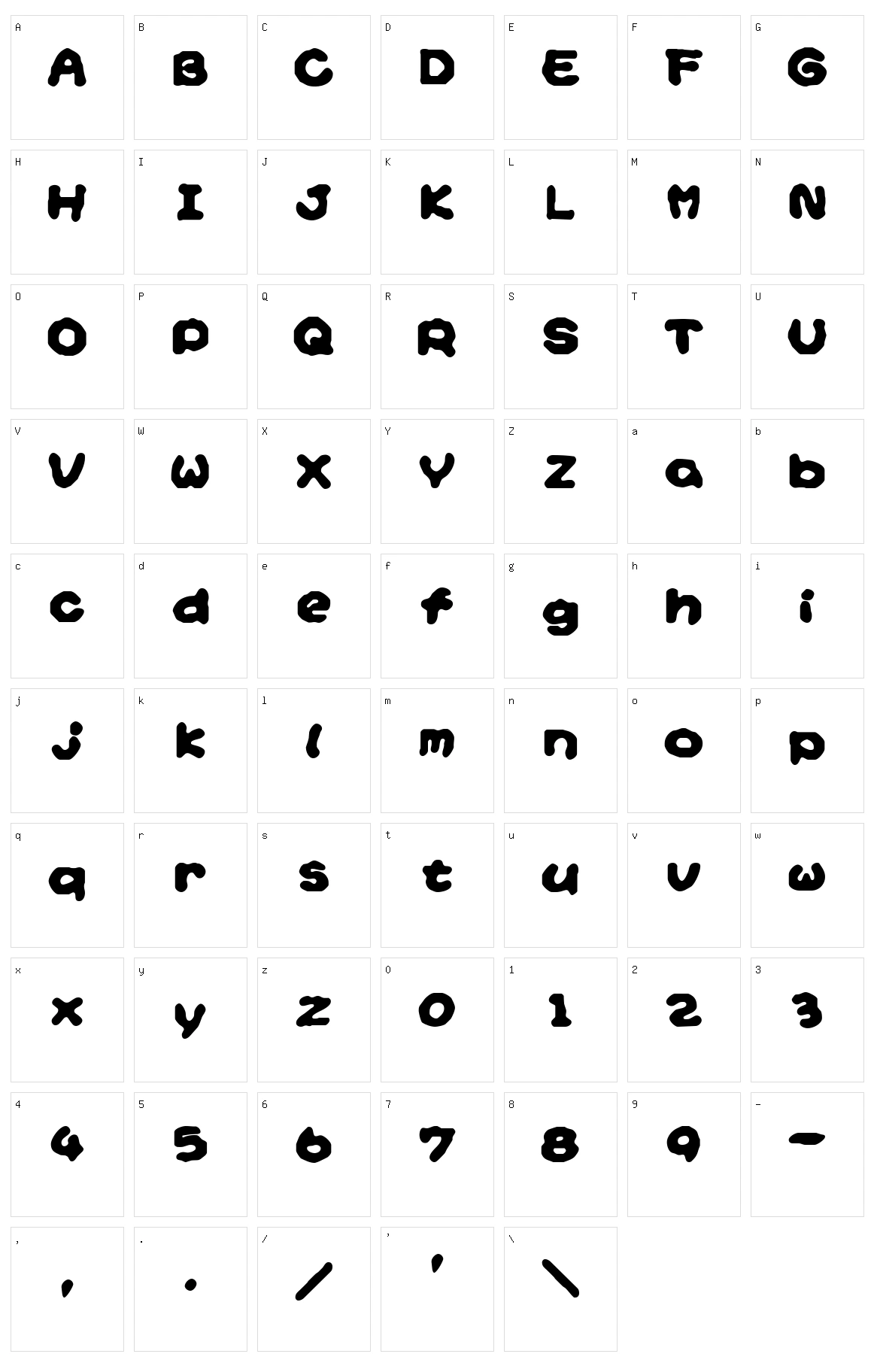
Yoshi's Story Compiled by Brian Kent
The characters in this font are from the game 'Yoshi's Story' for the
N64. Throughout the game, the info is displayed as animated text (3 frames
of animation). I took a picture (with my Digital Camera) of each frame of
animation on the High Score Name Entry screen. Then made a font out of the
Frame that looked the best.